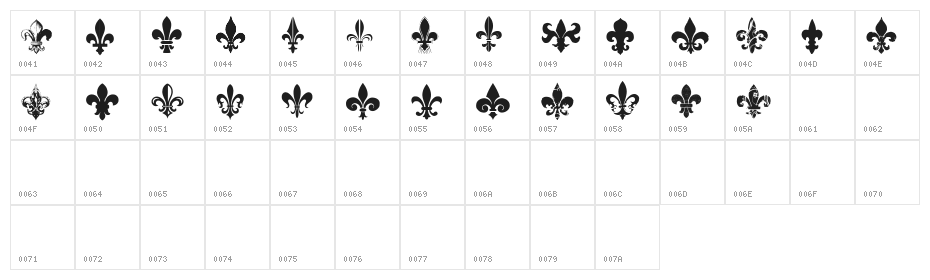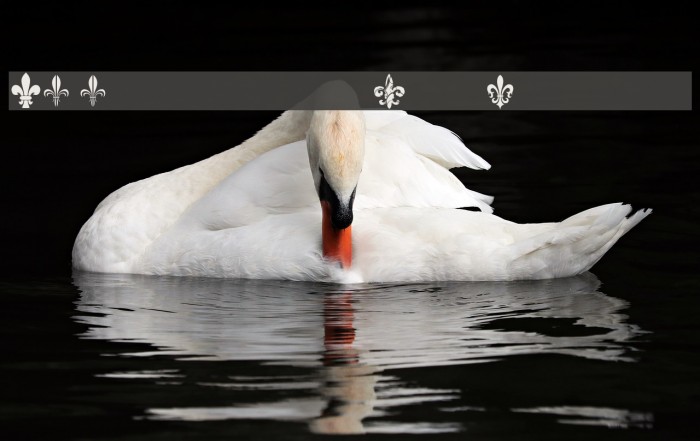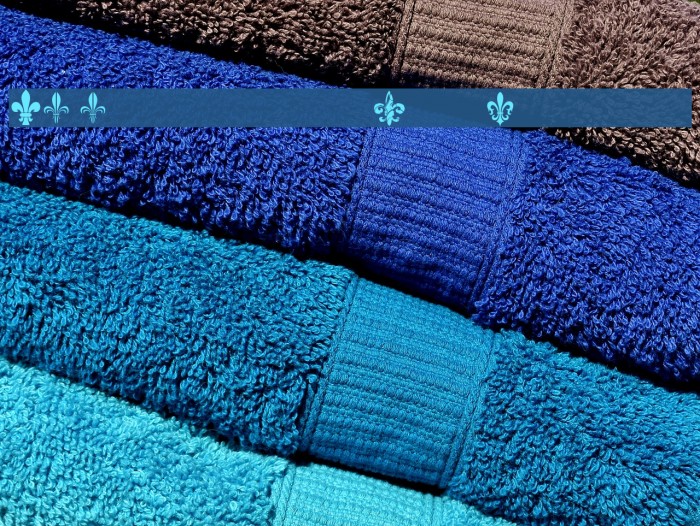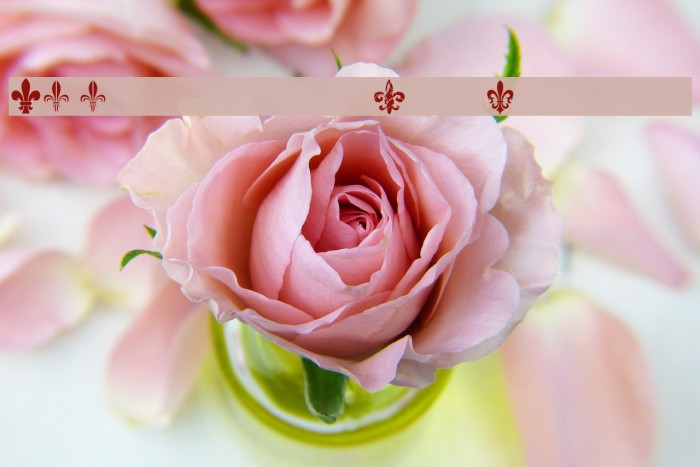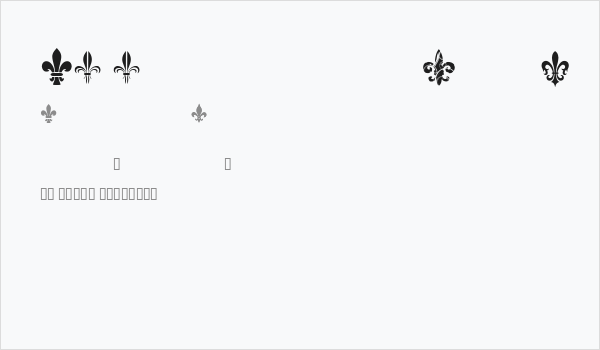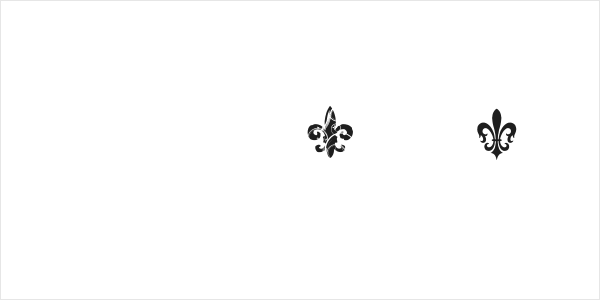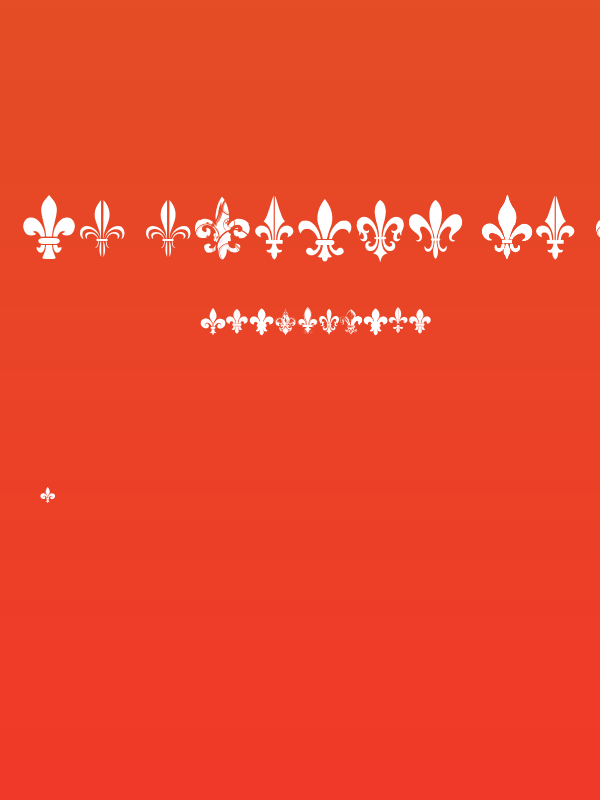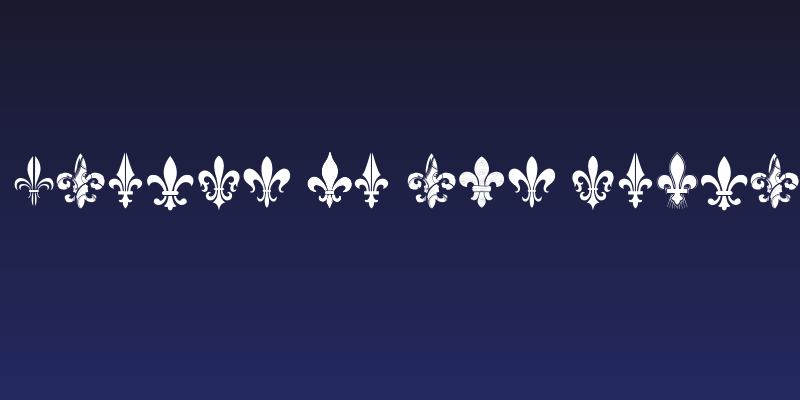
CF Fleurs de Lys Regular Font
CF Fleurs de Lys Regular Description
This is a decorative font featuring a variety of fleur-de-lis symbols, each with unique embellishments and styles. The symbols are ornate and detailed, showcasing a range of artistic interpretations of the classic fleur-de-lis motif. The designs vary from simple and elegant to intricate and bold, offering a diverse selection for creative projects. The font is primarily decorative, focusing on visual appeal rather than readability. It is ideal for adding a touch of elegance and historical flair to designs.
Use CaseLogos, Decorative elements, Invitations
Proposed ProjectsIdeal for invitations, historical-themed designs, decorative borders, and artistic projects requiring a touch of elegance.